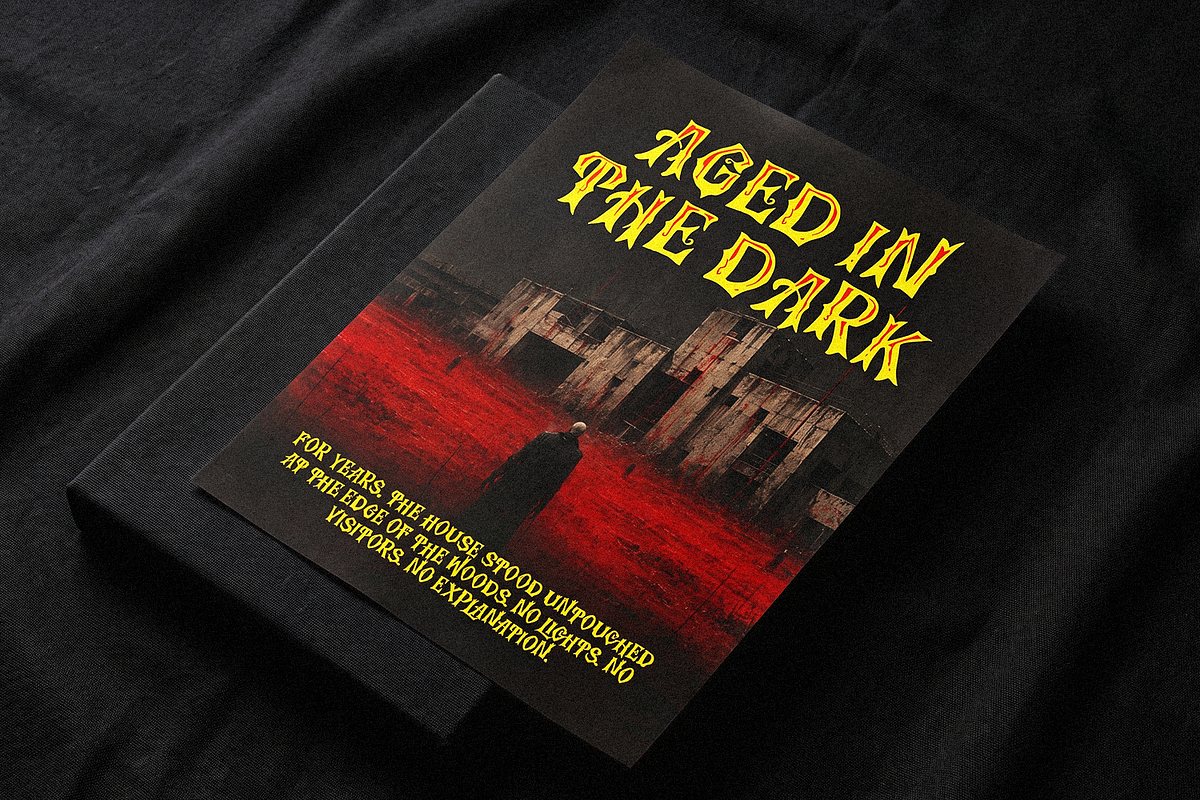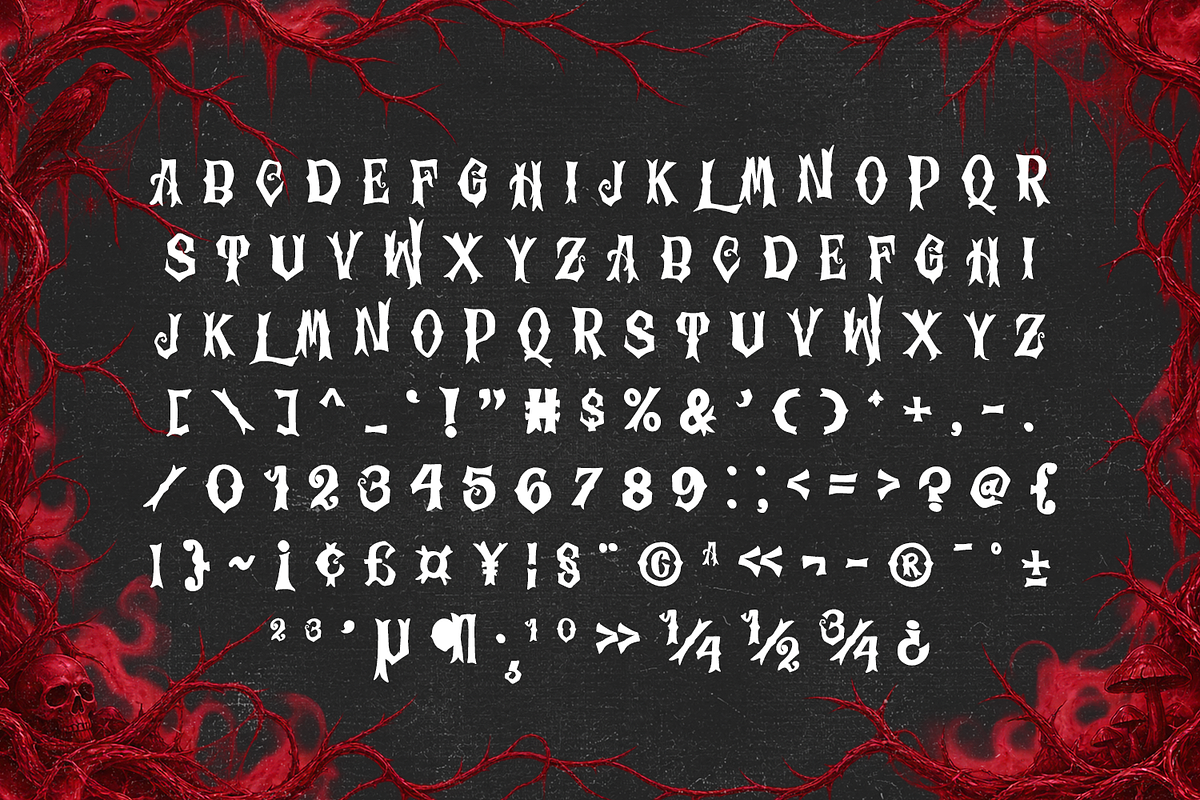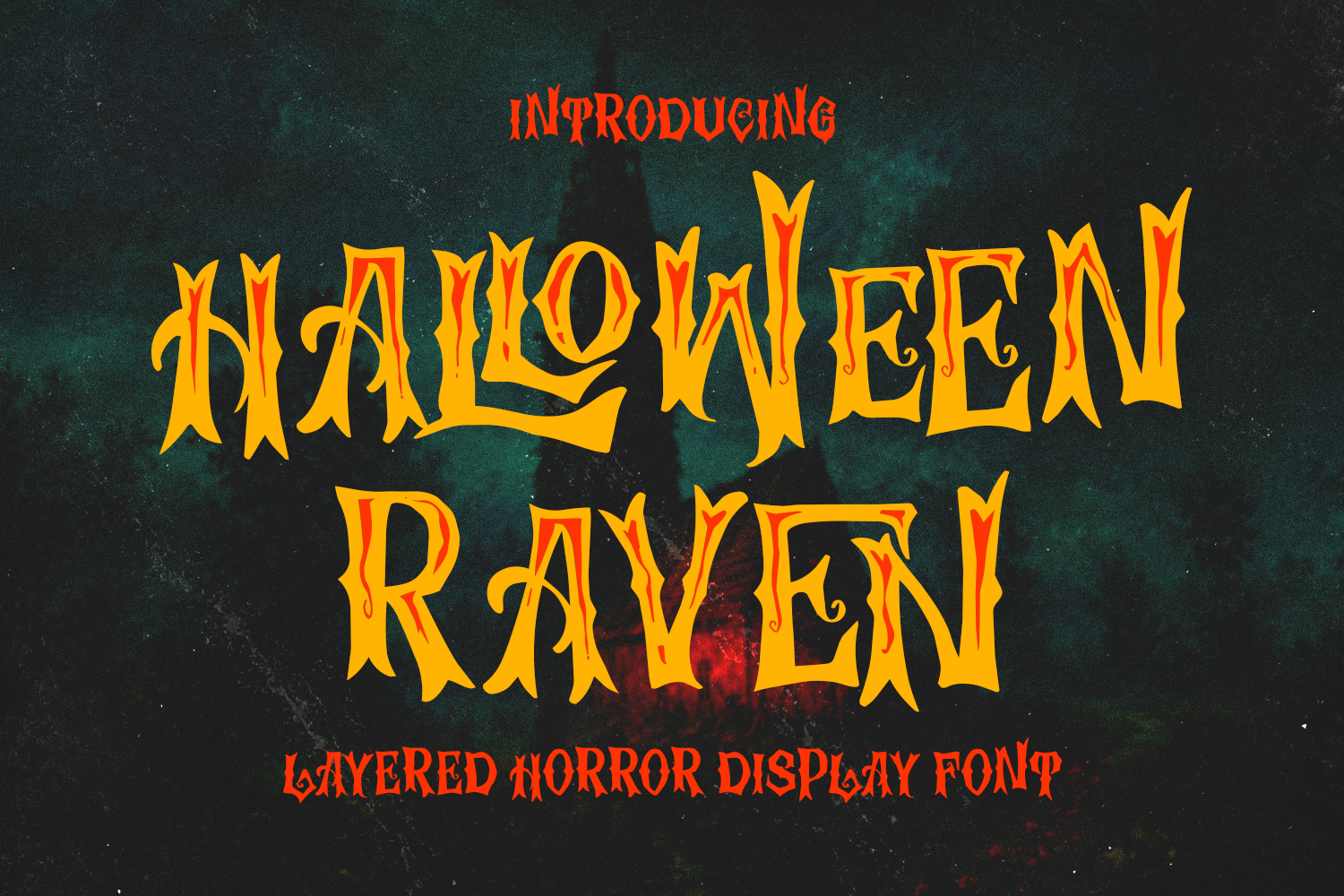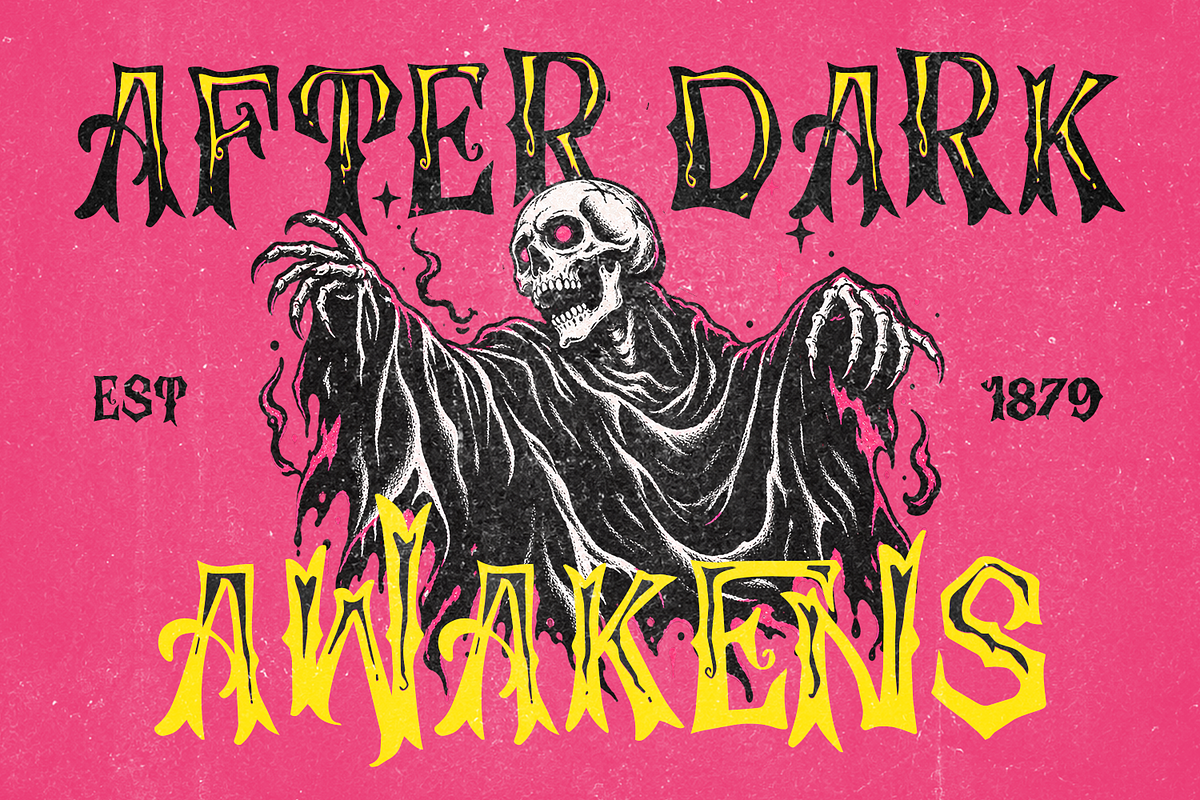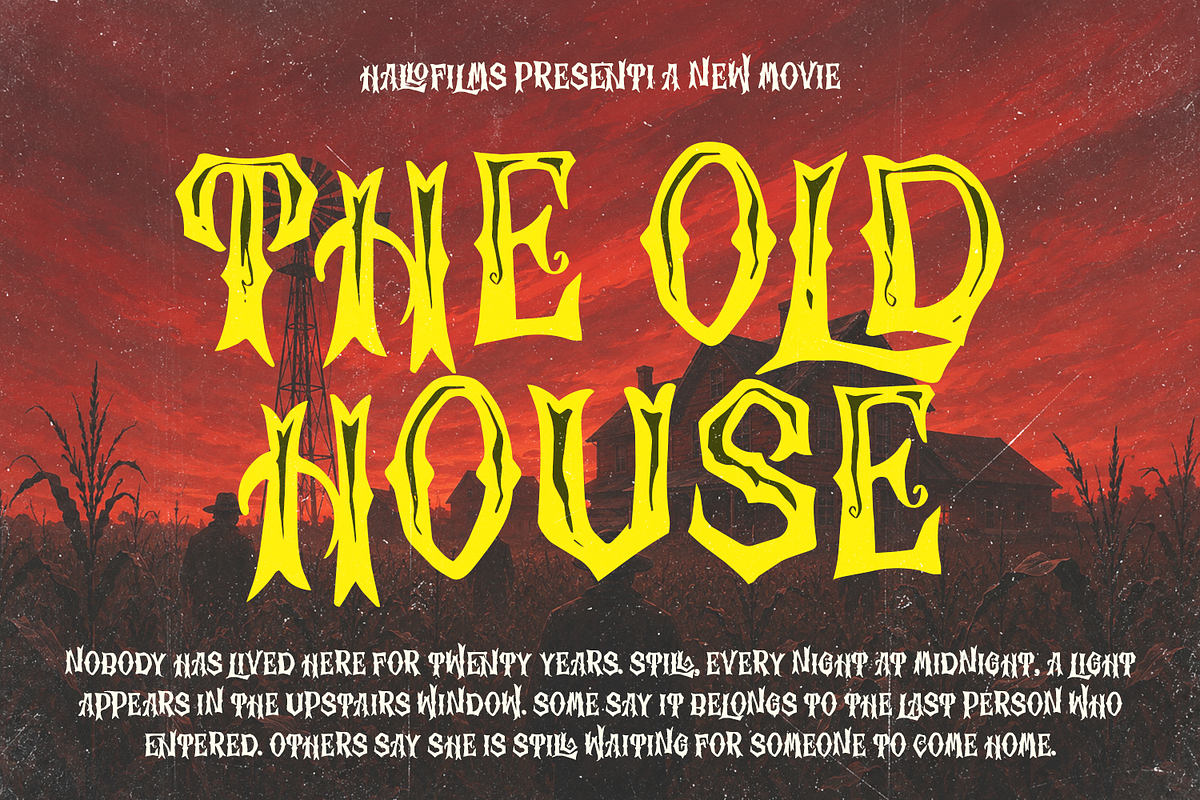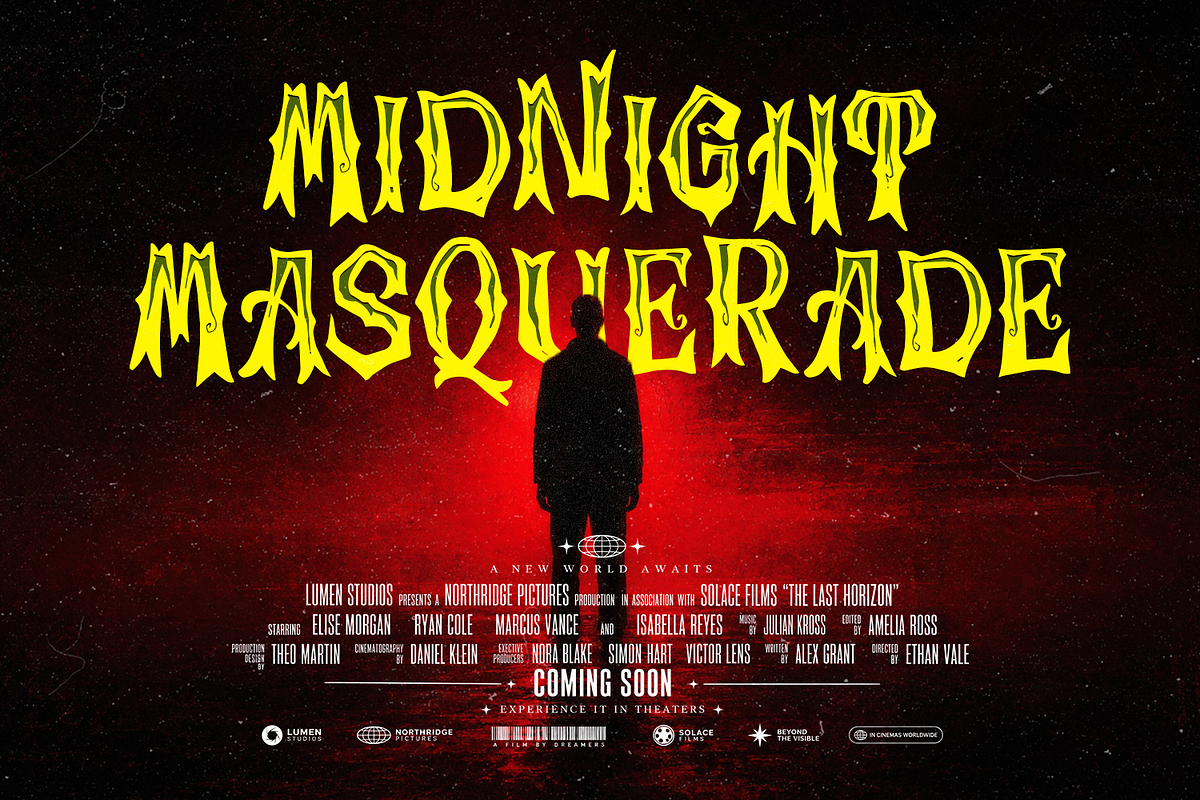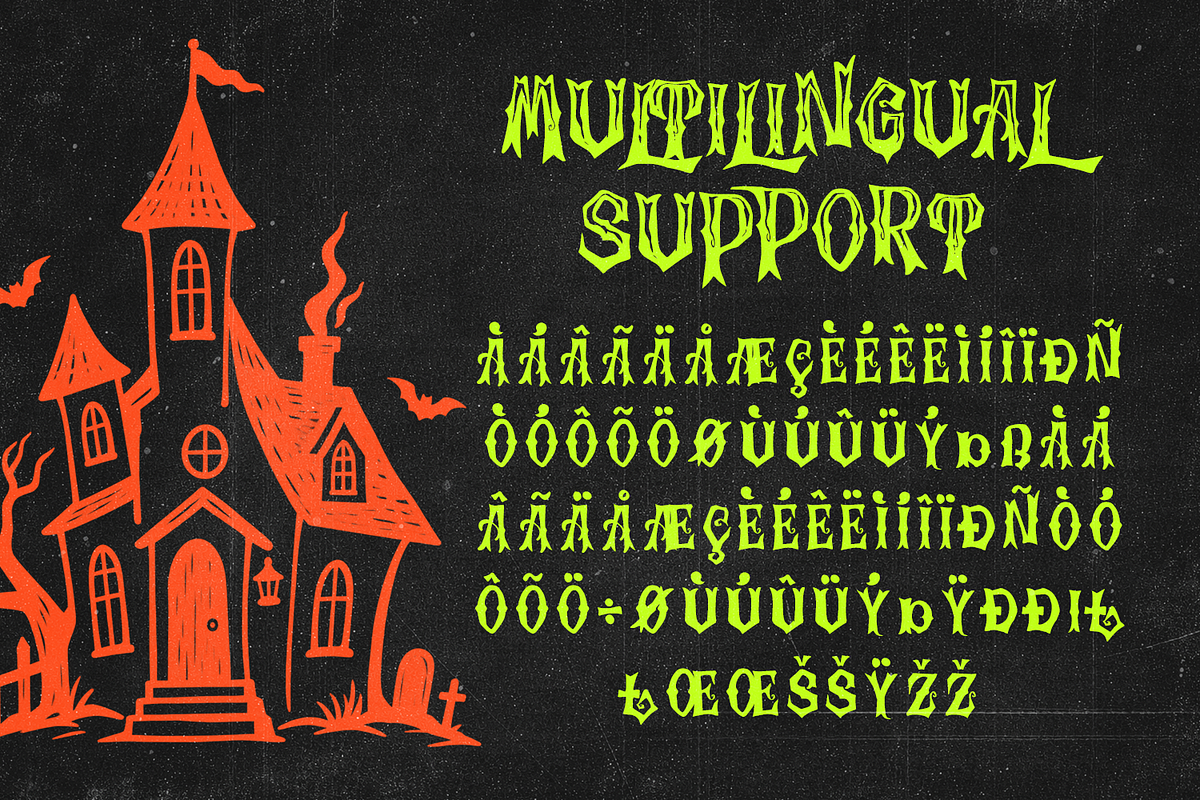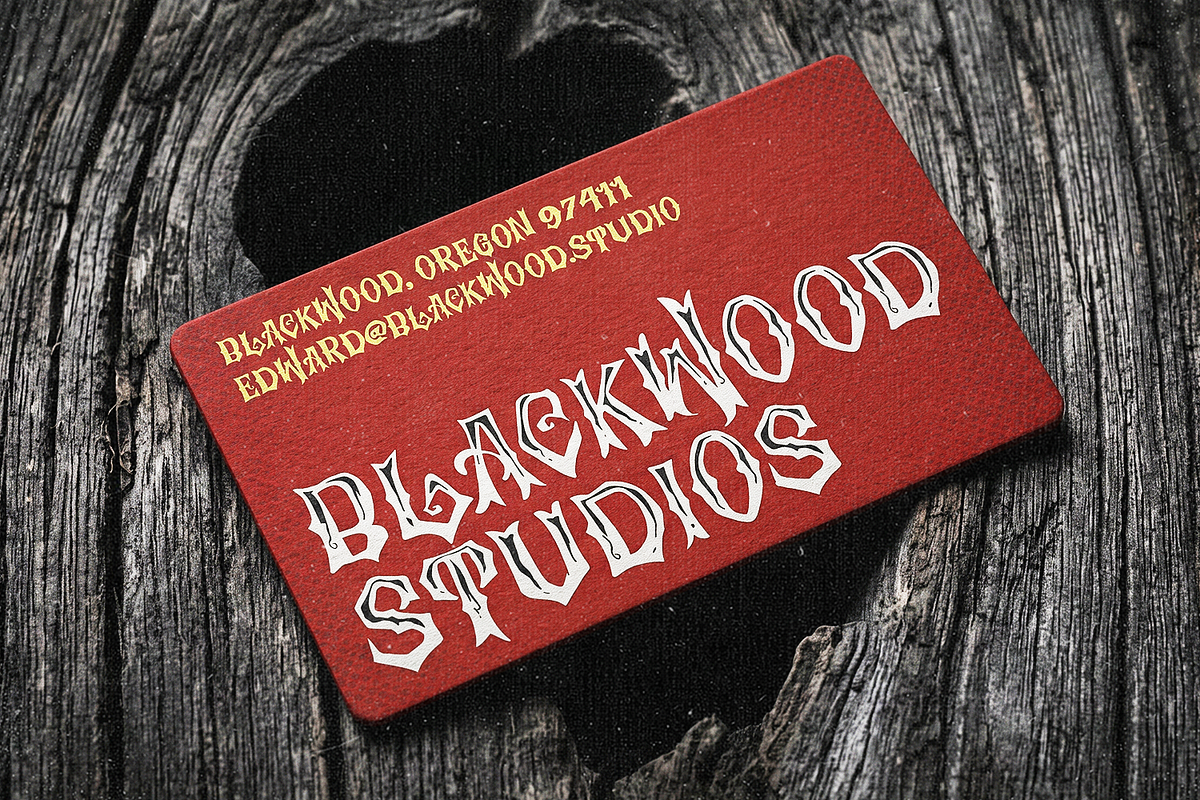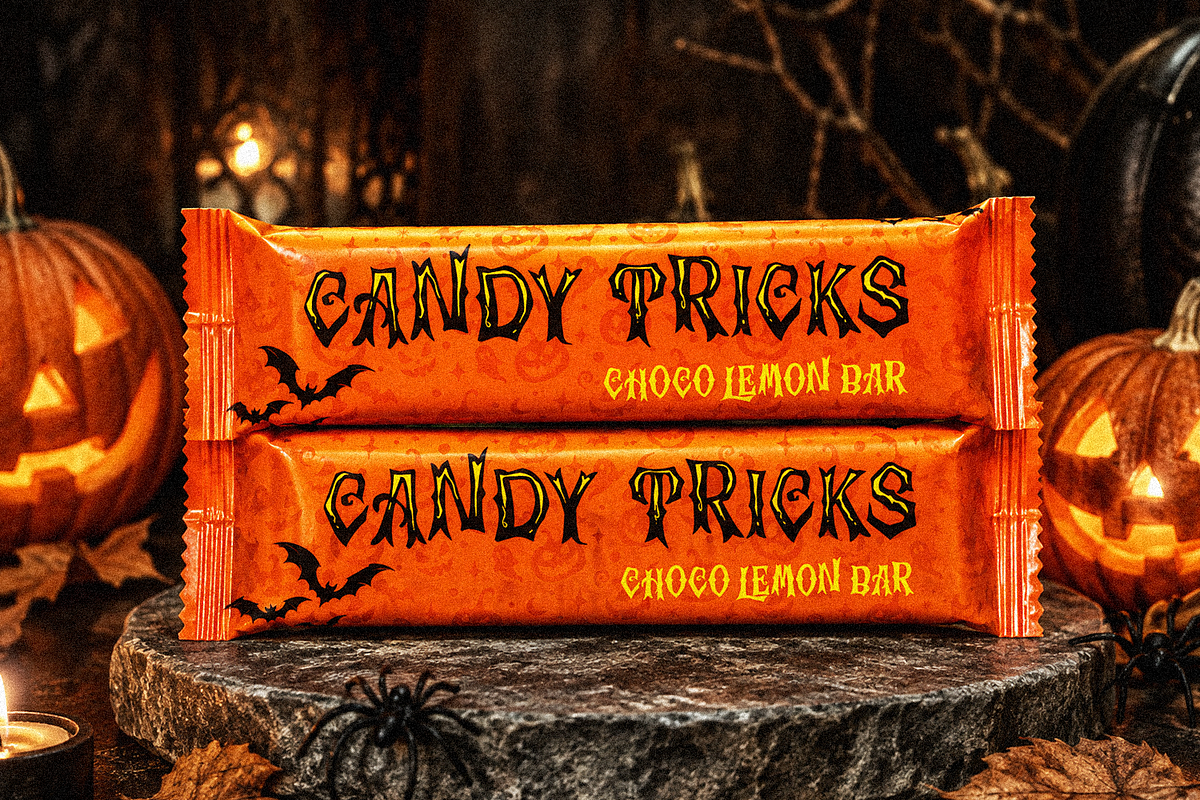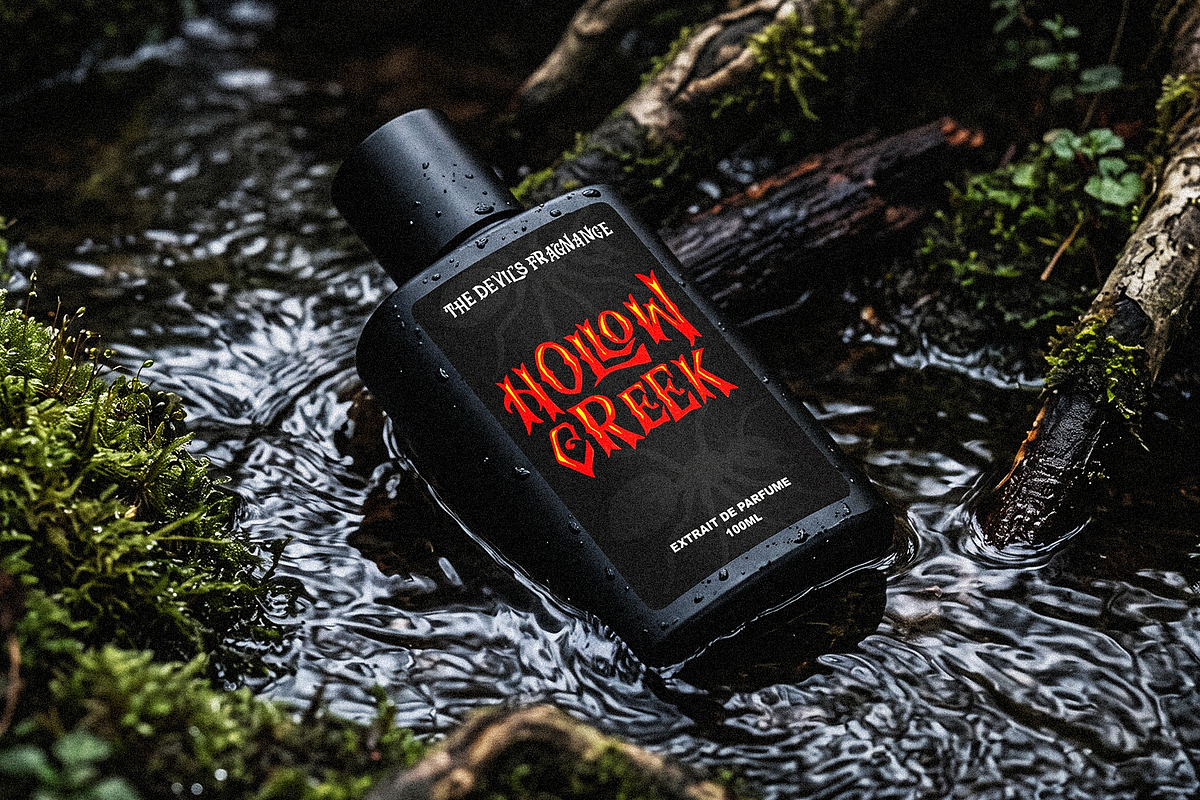
Halloween Raven Bold Horror Font
Halloween Raven is a bold, spooktacular layered horror display font designed to bring eerie charm and dramatic mystery to your seasonal creative projects. Featuring sharp gothic edges, inner flame-like detailing, and expressive handcrafted letterforms, this typeface captures a dark, theatrical aesthetic that instantly transforms display typography.
Crafted with high attention to detail, Halloween Raven is ideal for design layouts that require a creepy, festive, and high-impact vintage horror touch.
- Complete Character Set: Includes full Uppercase and Lowercase display letterforms.
- Numbers & Punctuation: Complete set of numerals, standard symbols, and punctuation marks.
- Layered Font System: Inner detail layers for creating dynamic two-tone and dimensional flame effects.
- Multilingual Support: Accented characters supporting various European and Latin-based languages.
Ideal Applications:
- Halloween Party & Event Decor: Standout typography for party flyers, event posters, invitations, and haunted house signage.
- Product & Merchandise Design: Spooky branding fortrick-or-treat bags, mugs, and sticker packs.
- Editorial & Cover Art: Eye-catching titles for horror novels, comic books, thriller movie posters, and magazine covers.
- Packaging & Branding: Themed packaging for seasonal candy, craft beer labels, bakery goods, and novelty items.
- Digital & Social Media Graphics: Dramatic text overlays for YouTube thumbnails, game banners, Instagram posts, and streaming graphics.